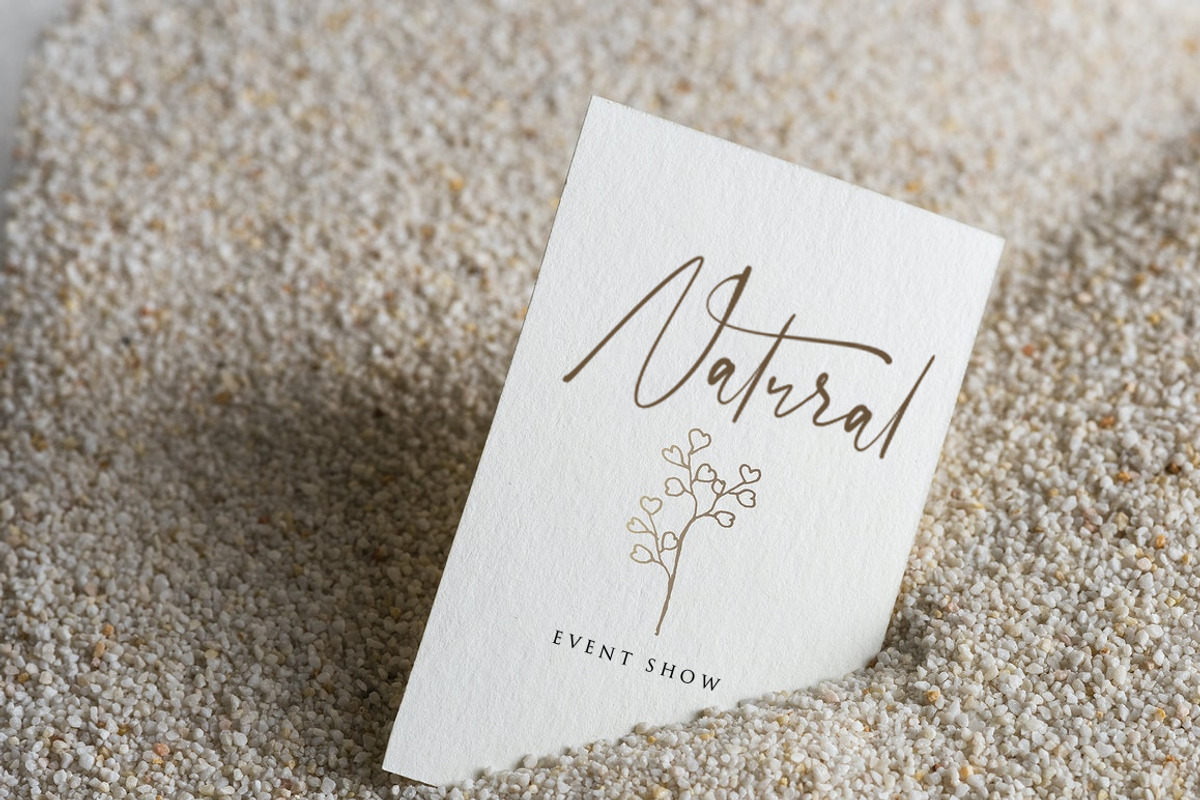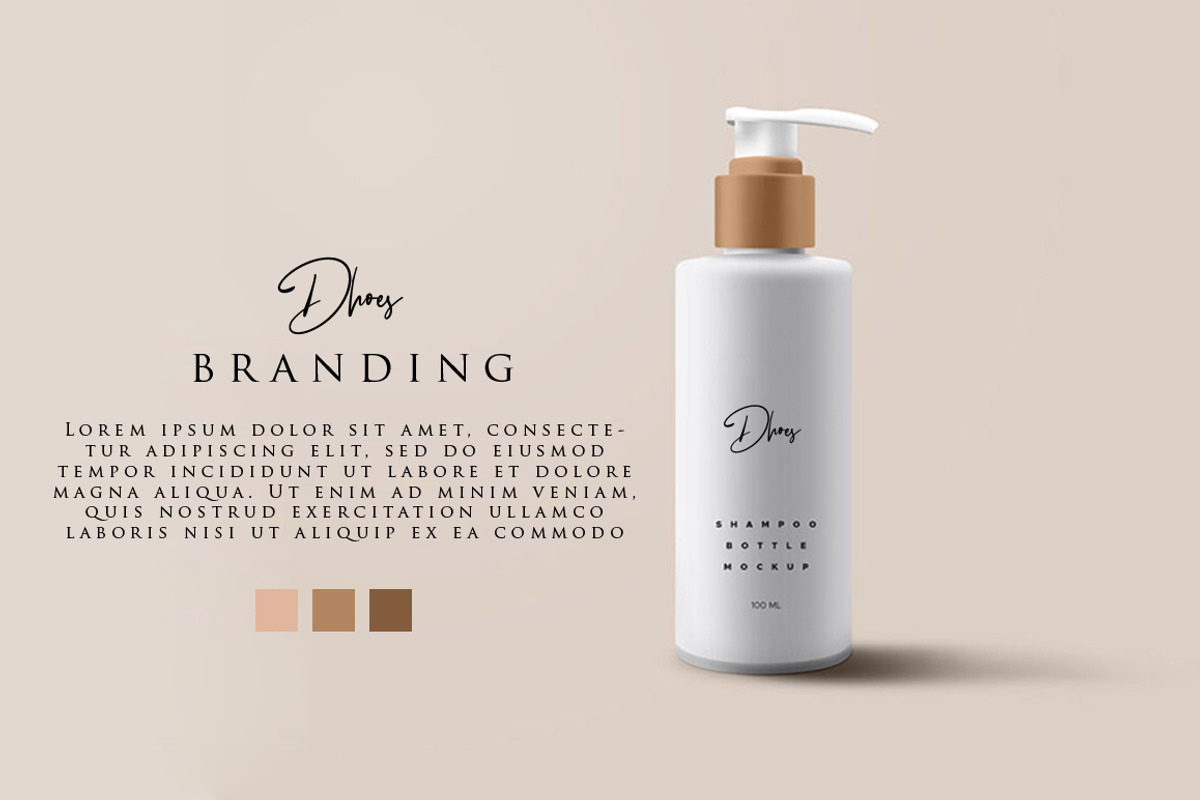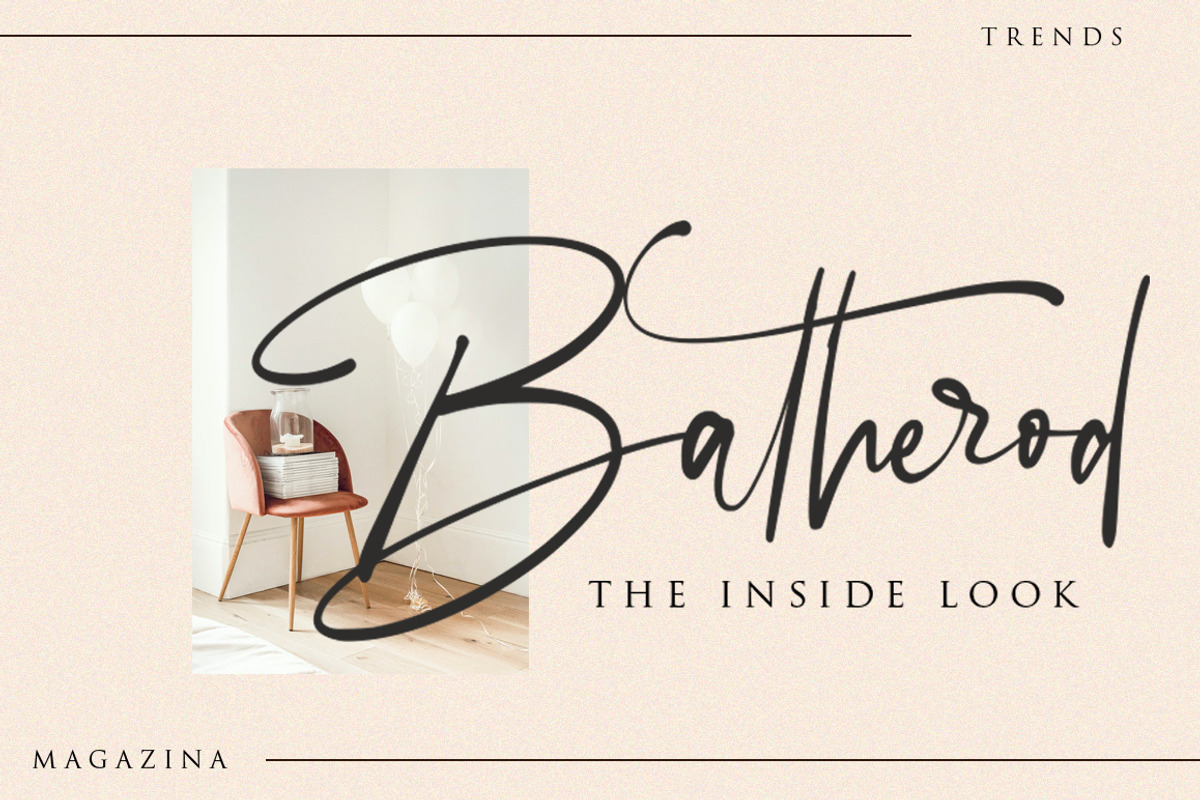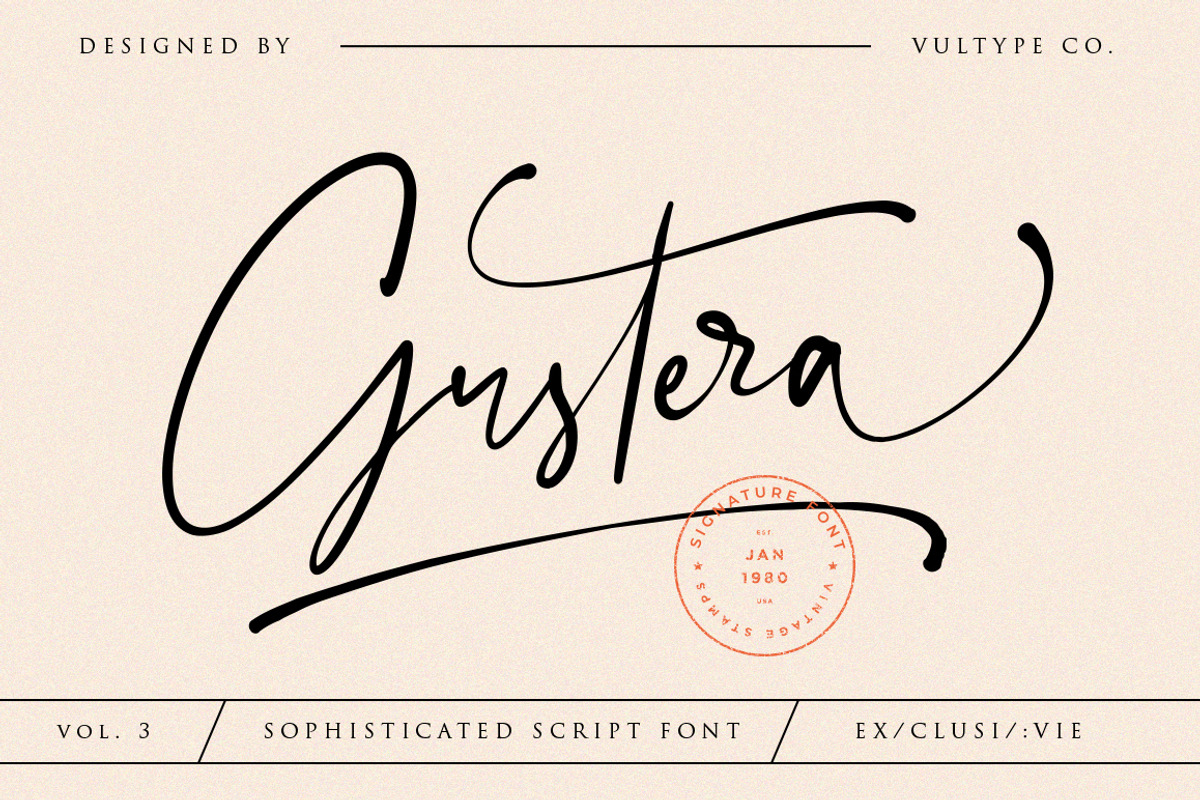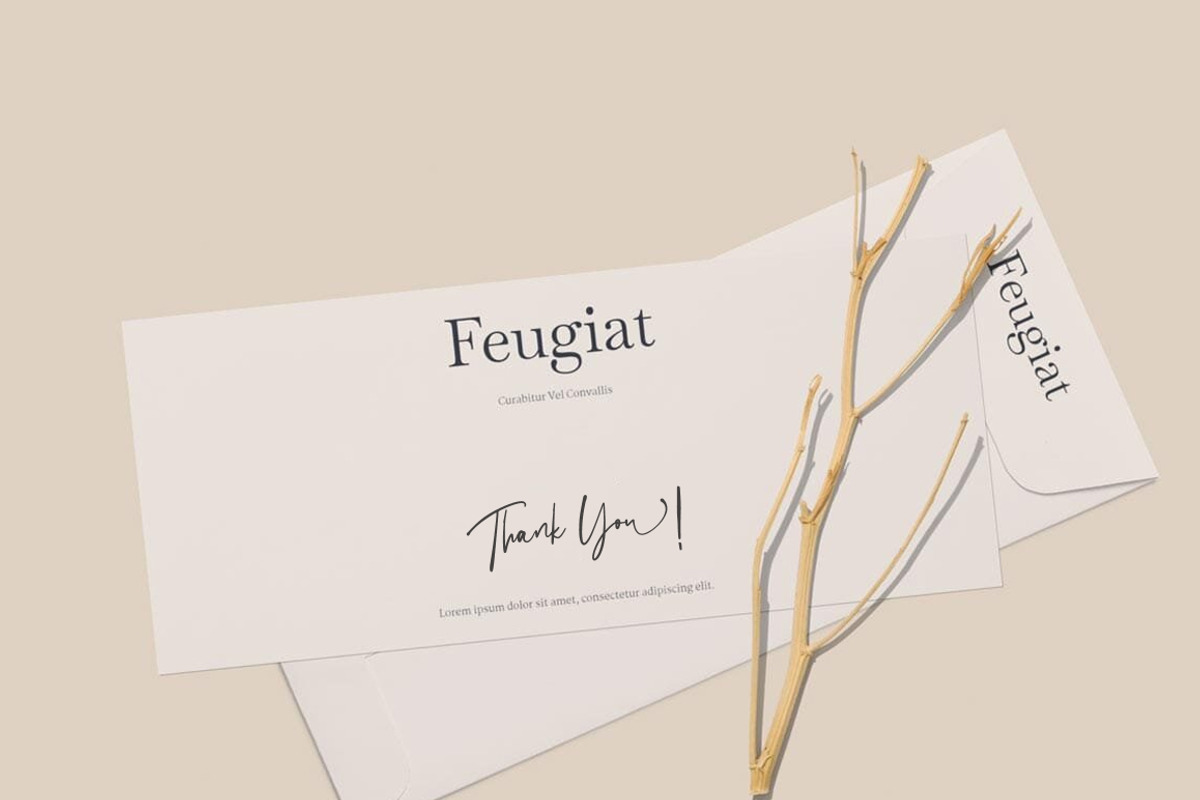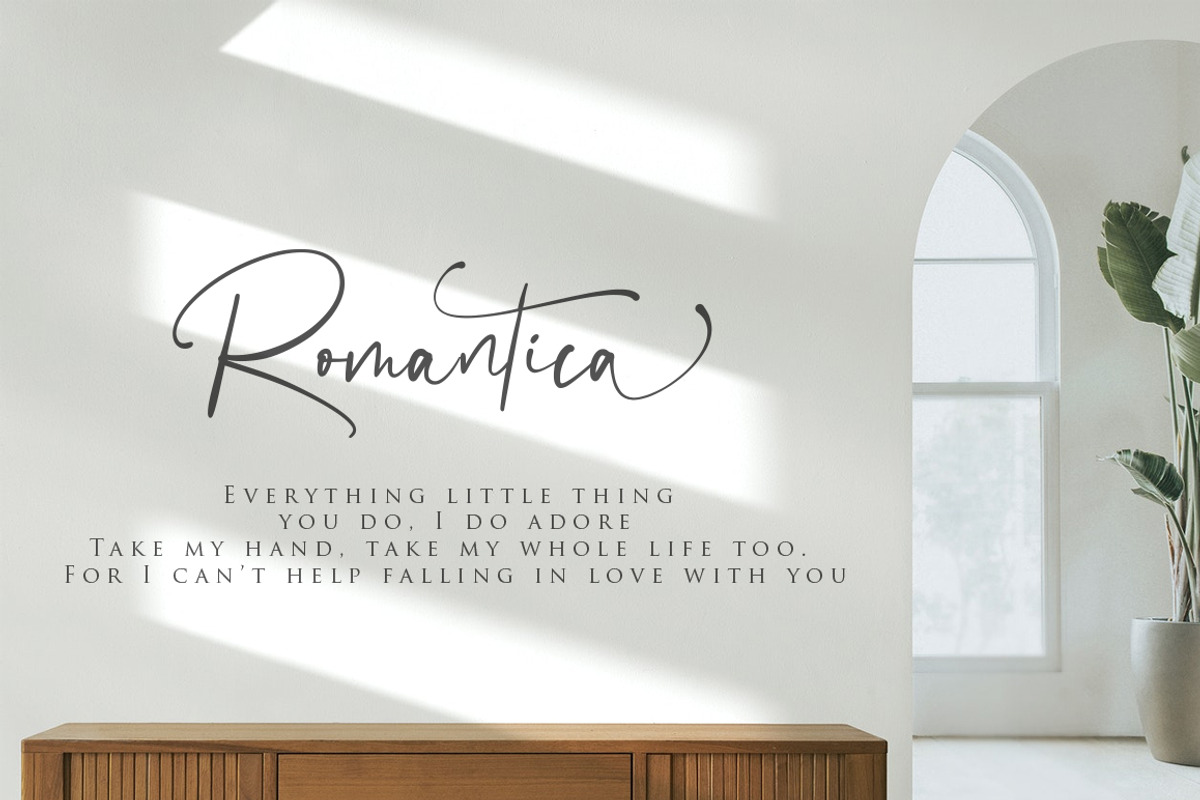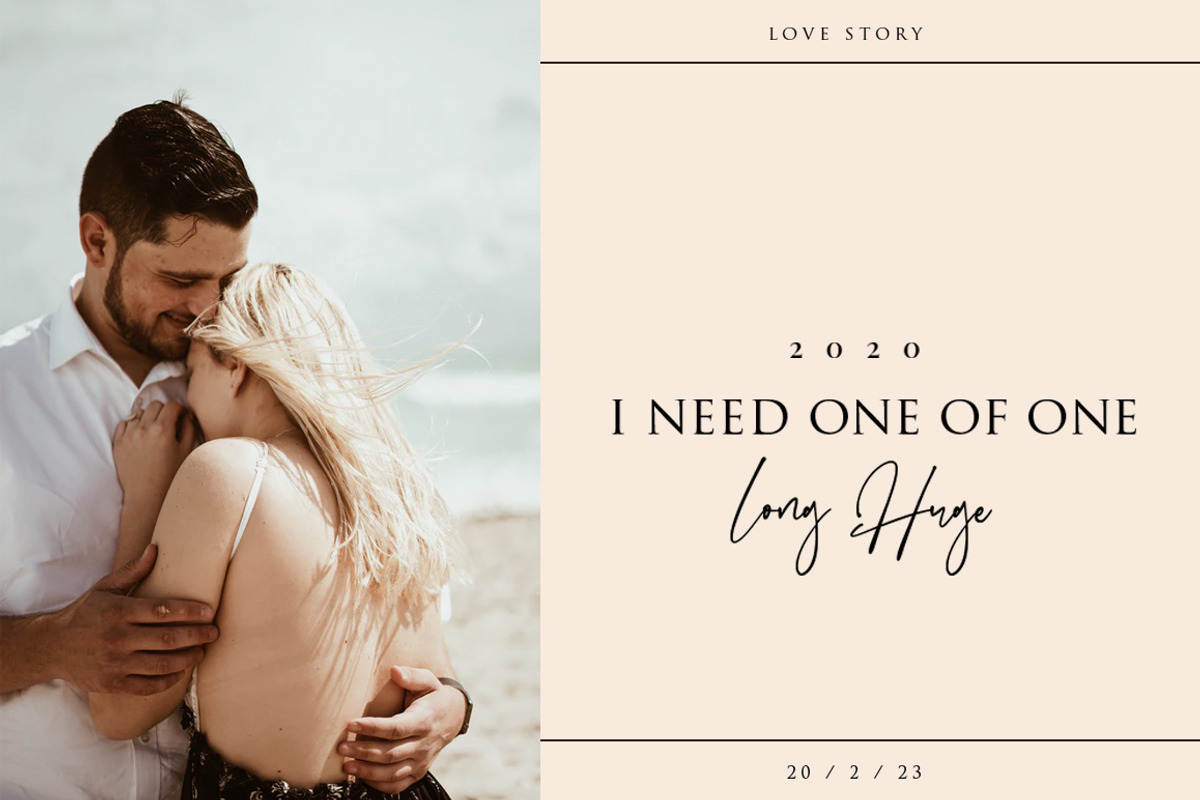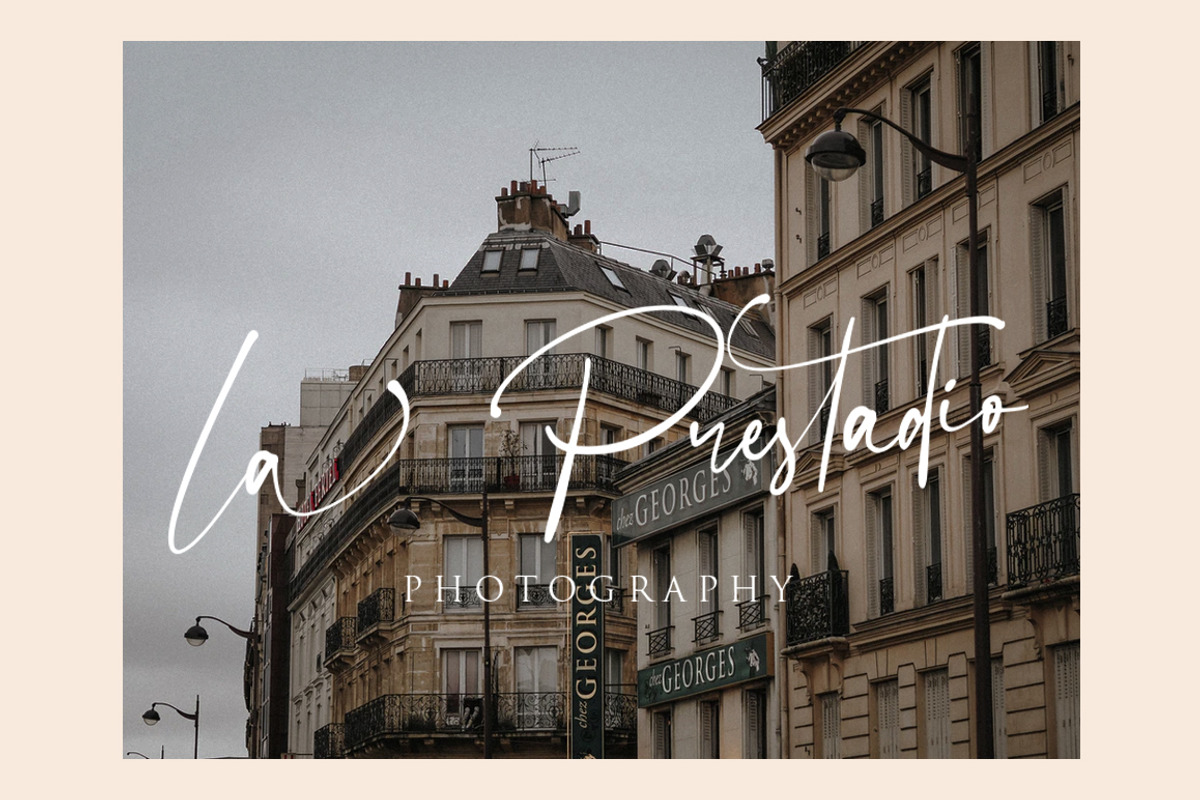
Gustera // Sophisticated Script Font
Gustera is Sophisticated Script Font with beautiful ligature and alternate font.
inspired by a luxury fashion & editorial magazine style. Contemporary handwriting fonts with ligatures and alternative styles ready to add unique look and bloom on your design
It easily cooperating together For Magazine, Movies, or Book Titles. For Photography, Wedding Invitation, Restaurant Menu or T-shirt Design. For Flyers, Banner Ads, web and printing. From Food and Fashion to a Cosmetics product
Gustera script Font Features :
- Upper + Lowercase Letters
- Numbers + Punctuation
- Ligature Feature
- OpenType features